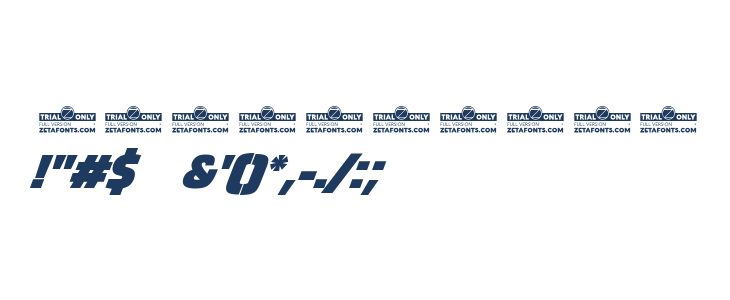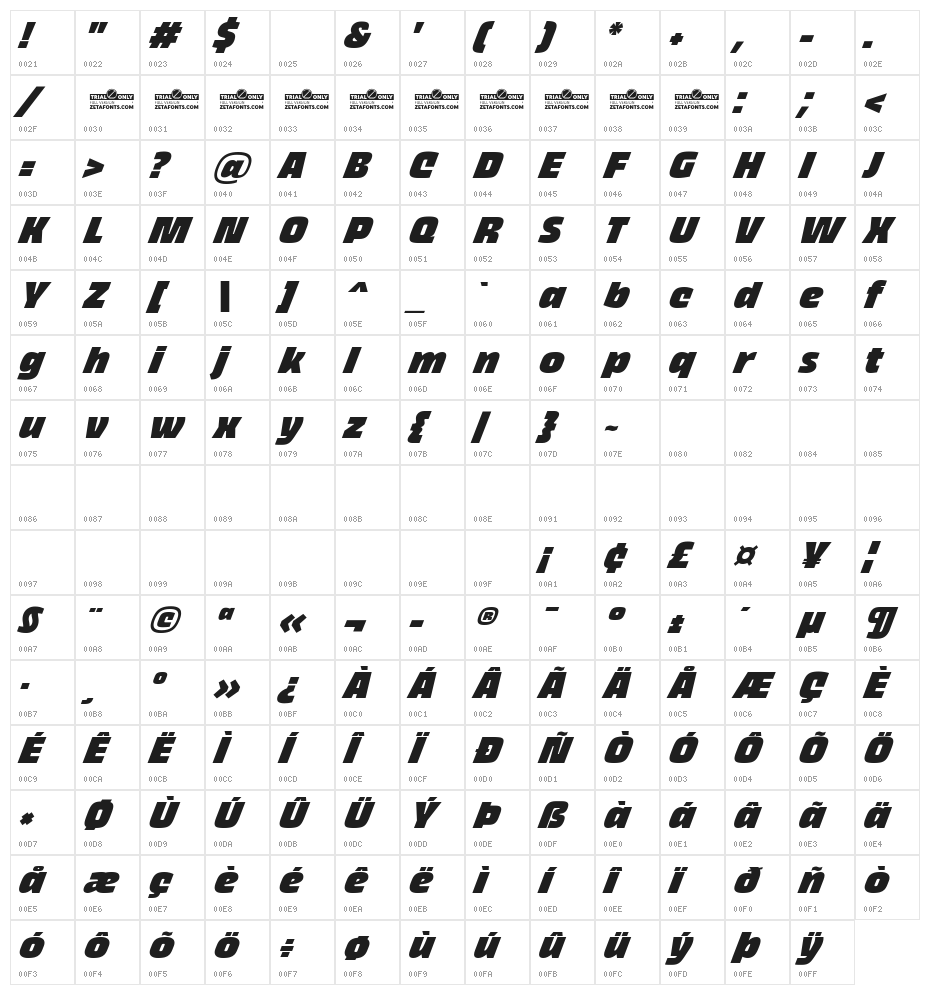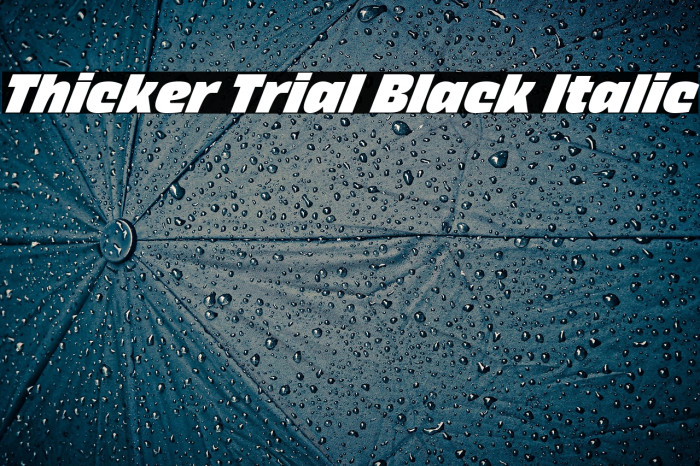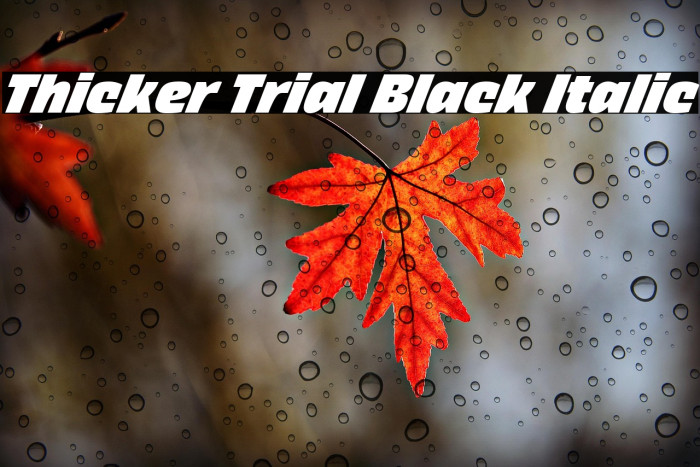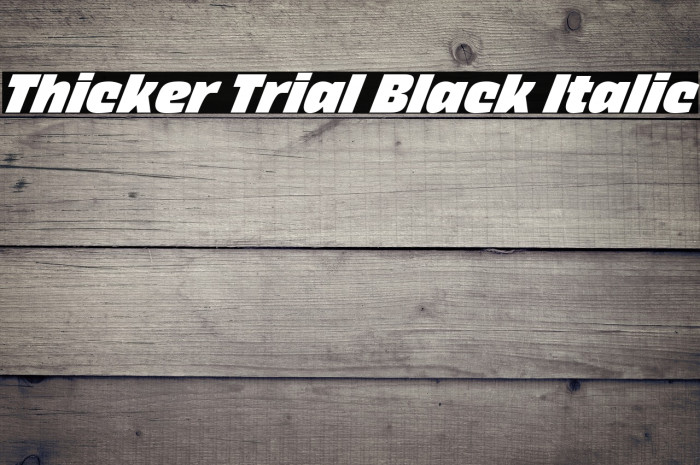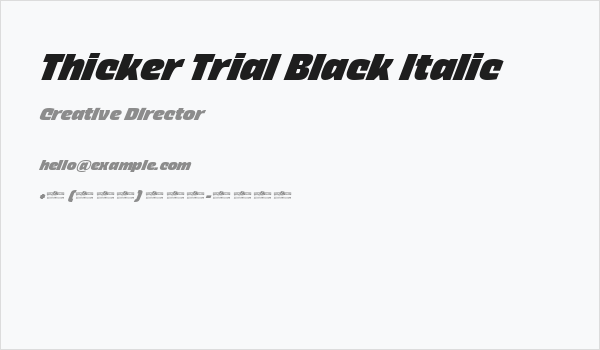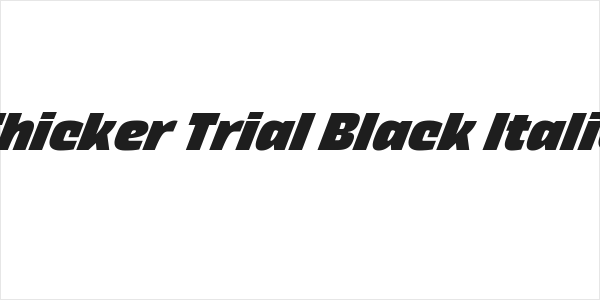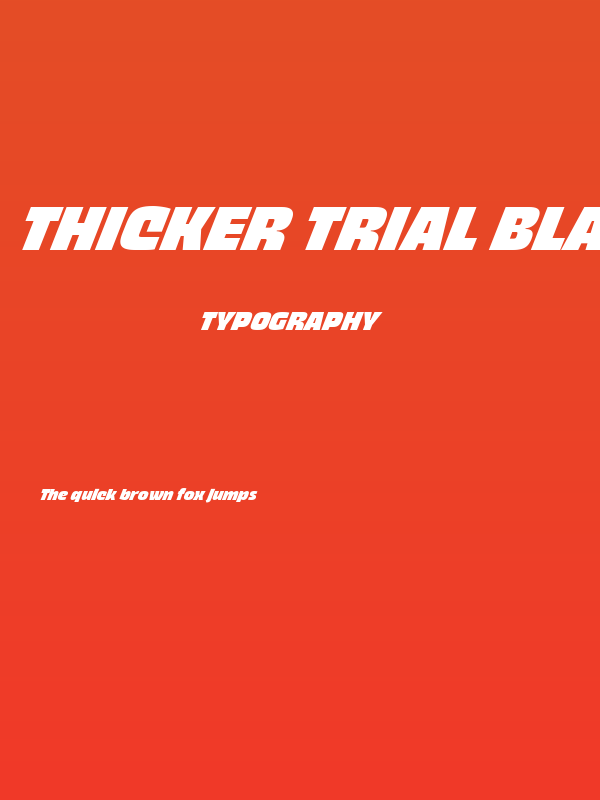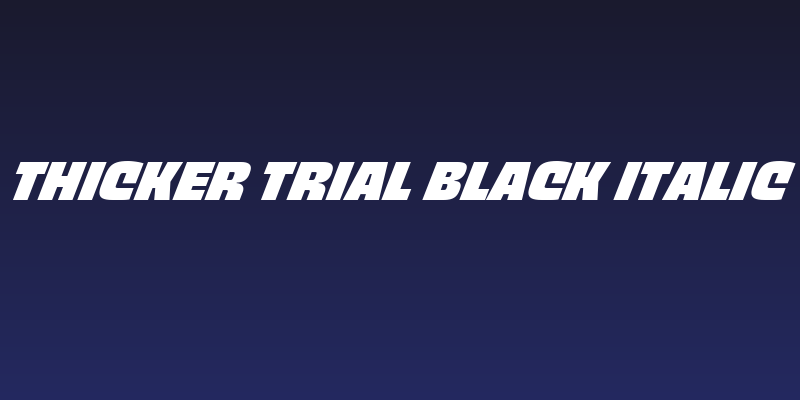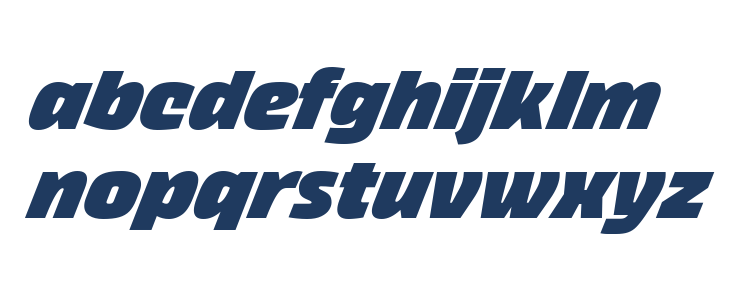
Thicker Trial Black Italic Font
Thicker Trial Black Italic Description
This font showcases a bold and dynamic style with a strong italic slant, giving it a sense of motion and energy. The characters are thick and robust, providing a powerful visual impact. The uppercase and lowercase letters maintain a consistent weight, ensuring readability while emphasizing the boldness of the design. The numbers and special characters follow the same stylistic approach, making them suitable for various applications. The font's overall appearance is modern and assertive, ideal for making statements in design projects.
| Proposed Projects | Ideal for headlines, posters, branding, and advertising where a strong visual impact is desired. |